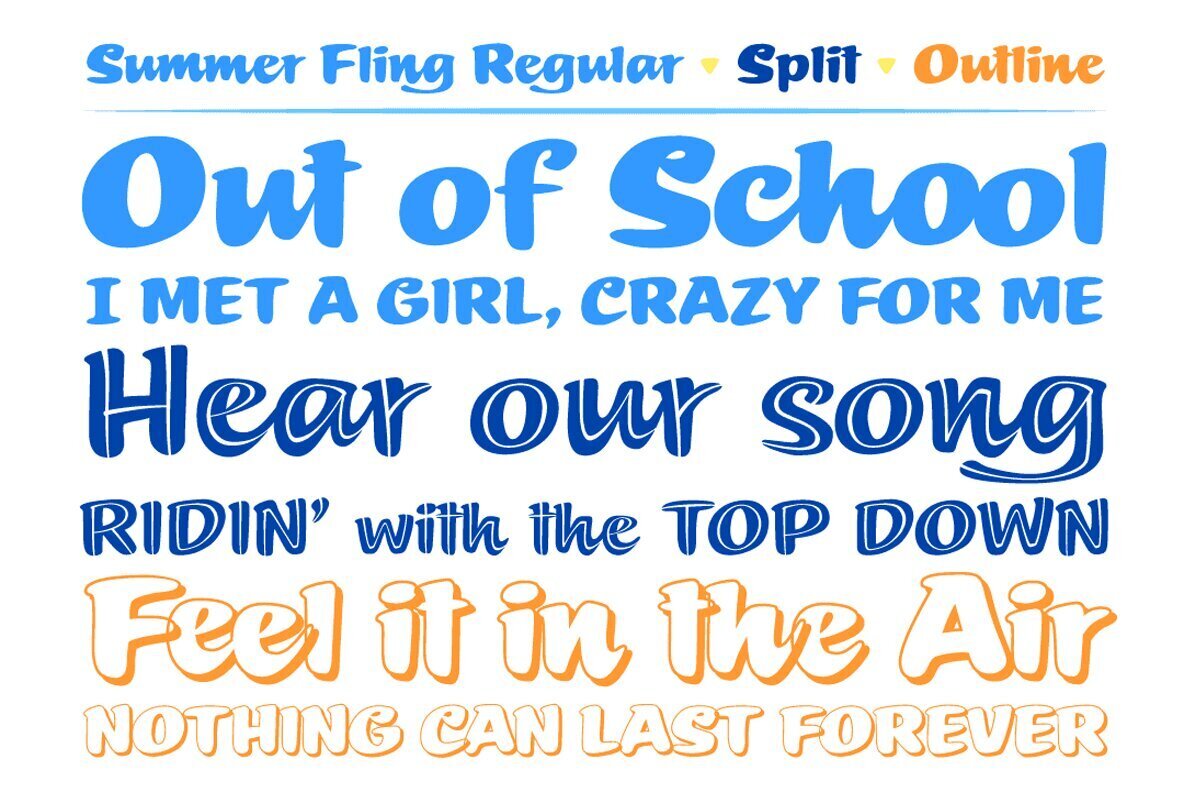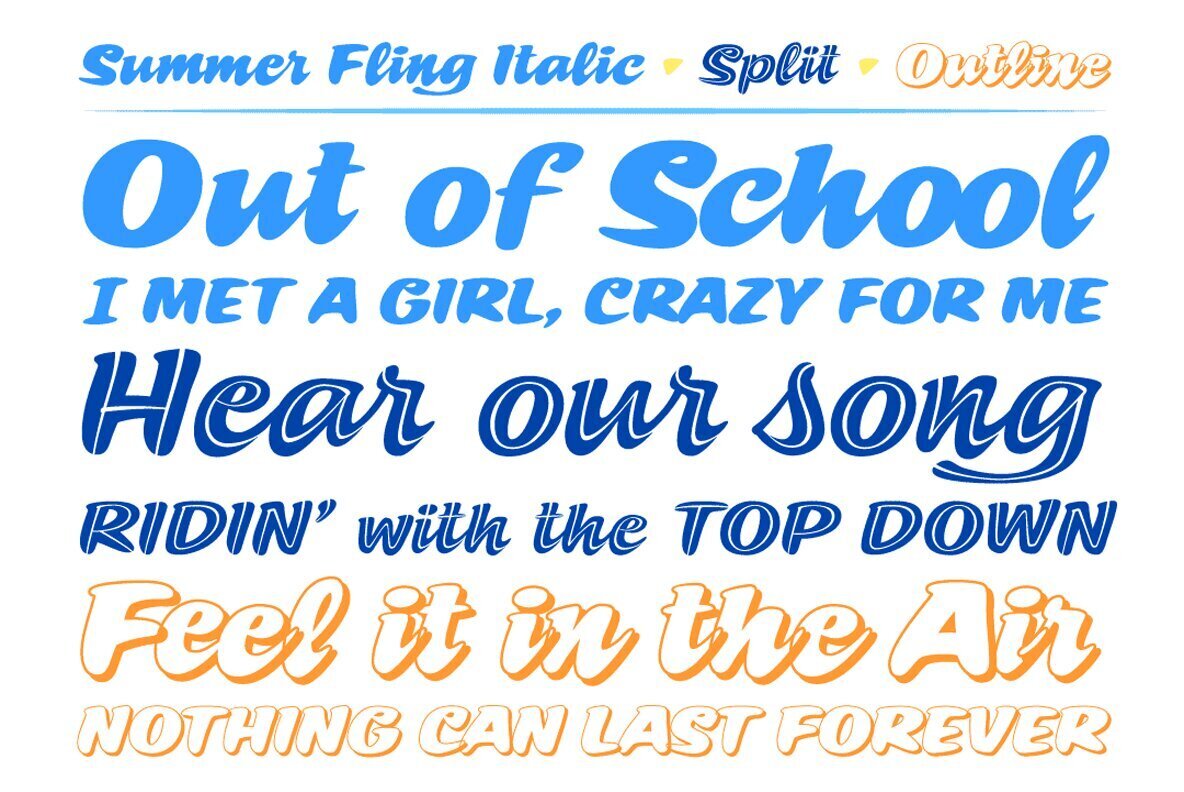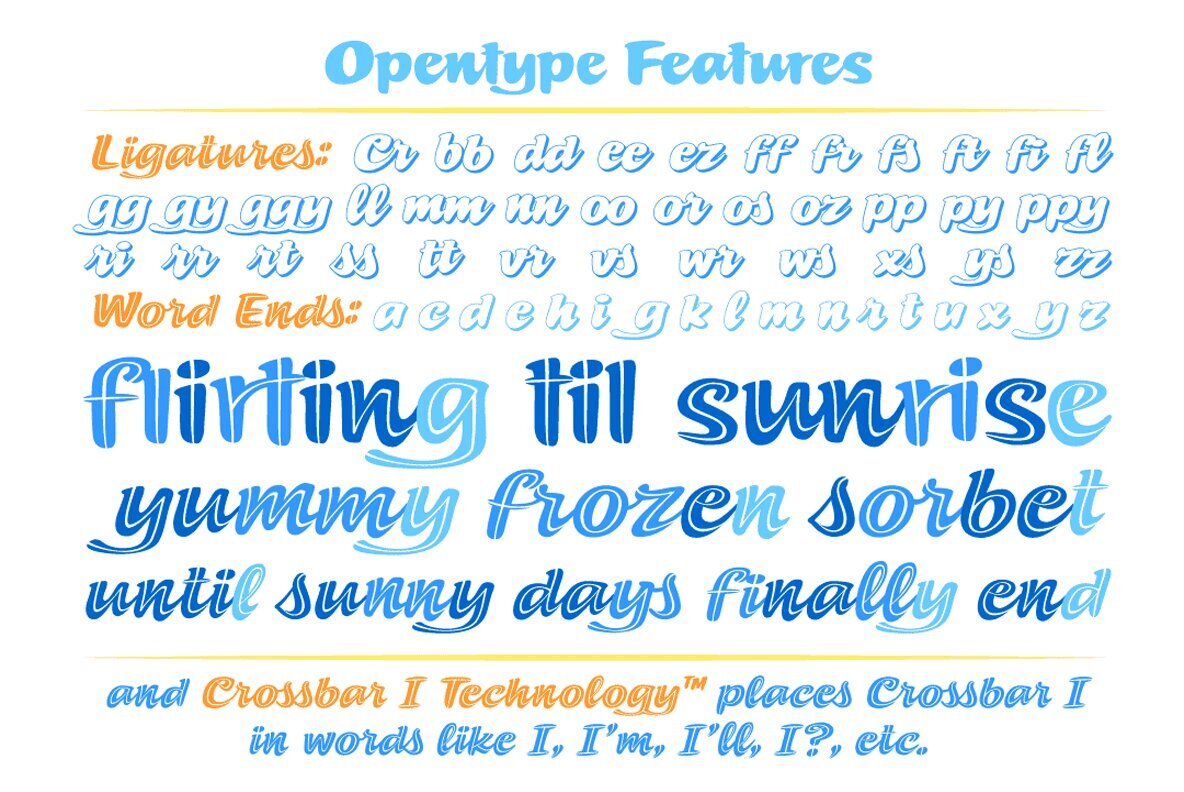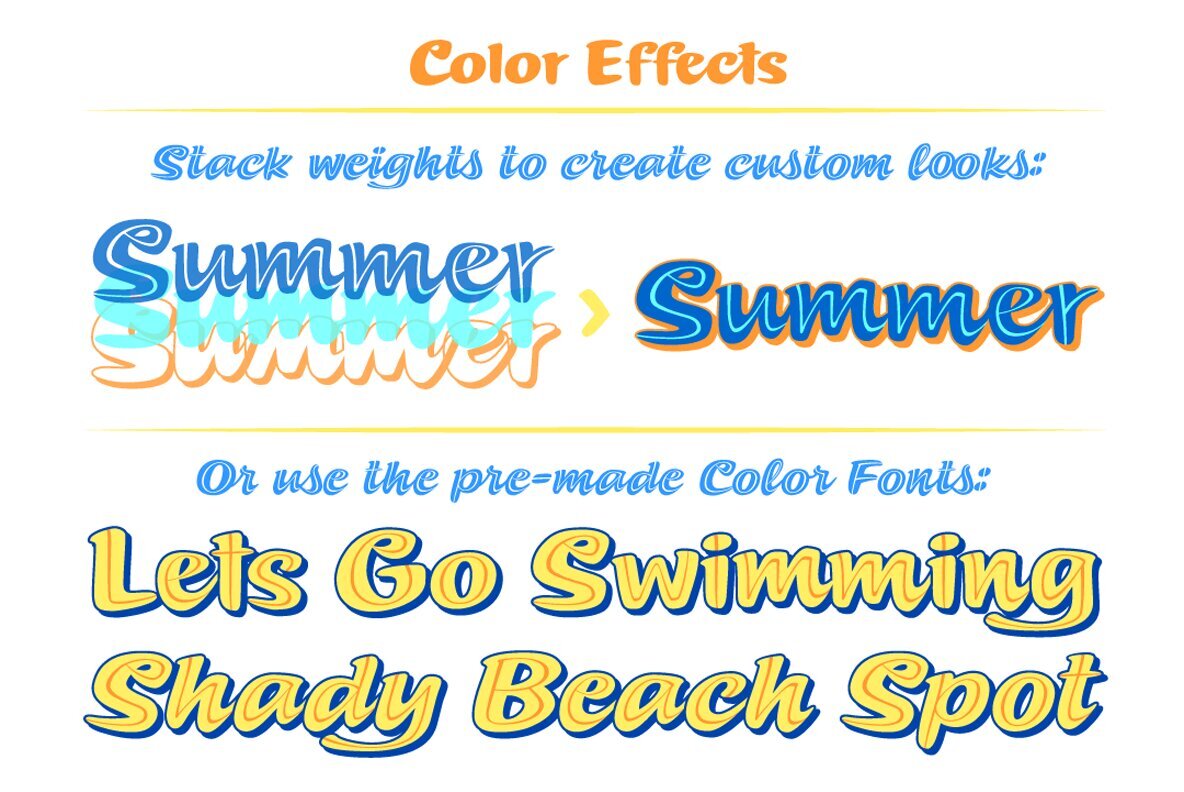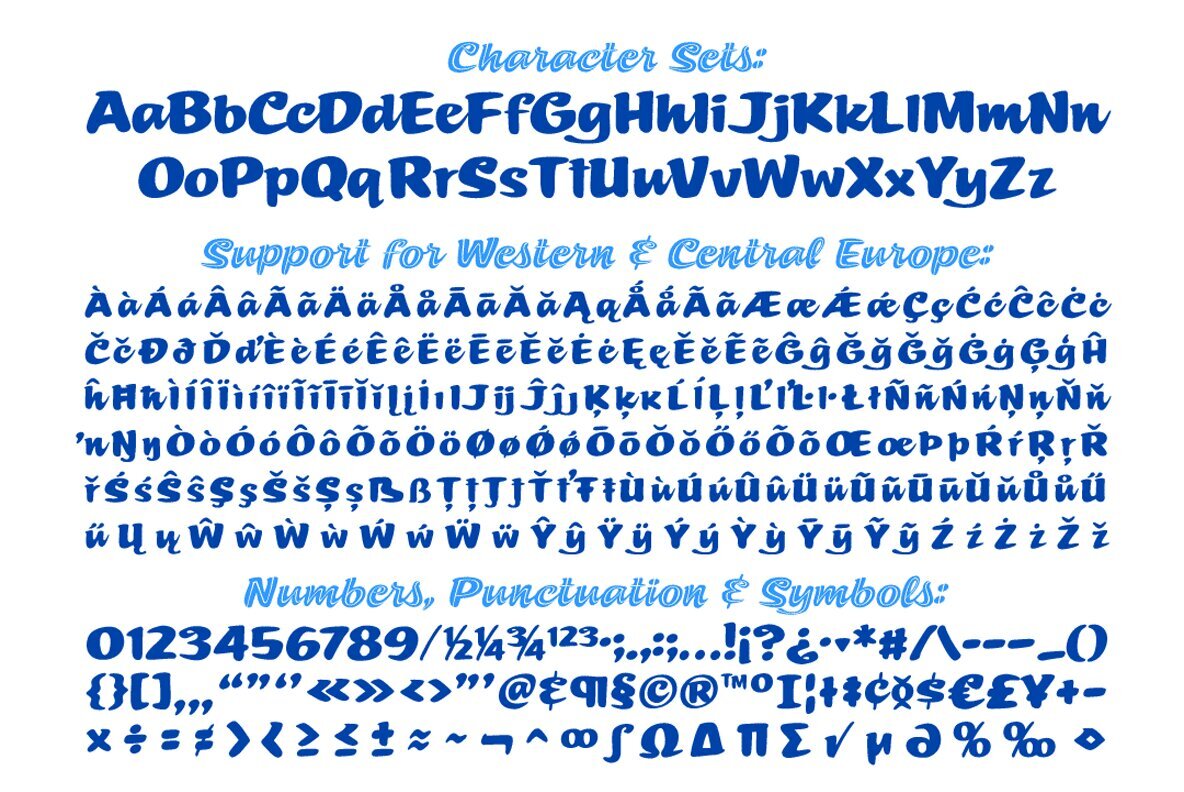
Summer Fling Font
Spring has Sprung! The Fling has Flung — and all that will be left after the inevitable Split is a fluttering in your heart, a blushful remembrance of lost love, an aching heart full of excitement and a strange sense of regret.
As you read and re-read Shakespeare’s sonnets to make sense of the swirling waters of your affectations, consider this font as the perfect headline for the Summer Blockbuster Romance you’re sure to pen in the warm, wine-soaked evenings ahead of you.